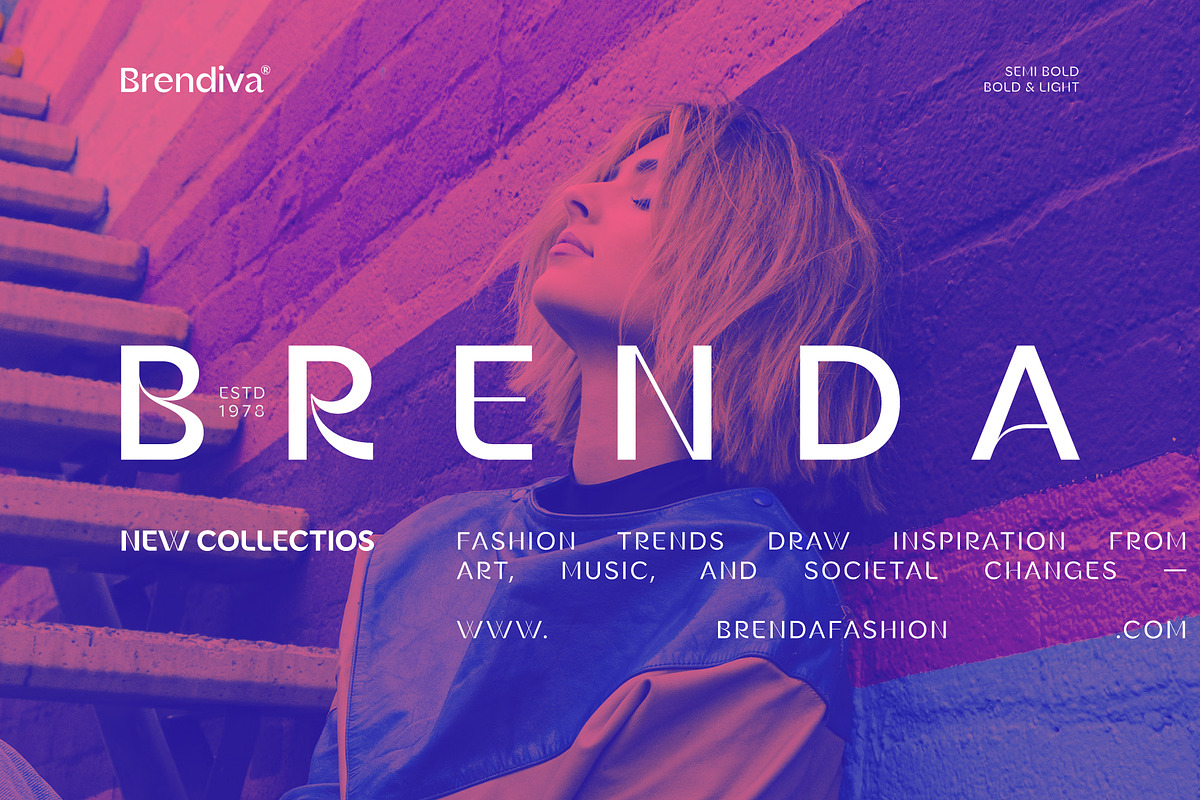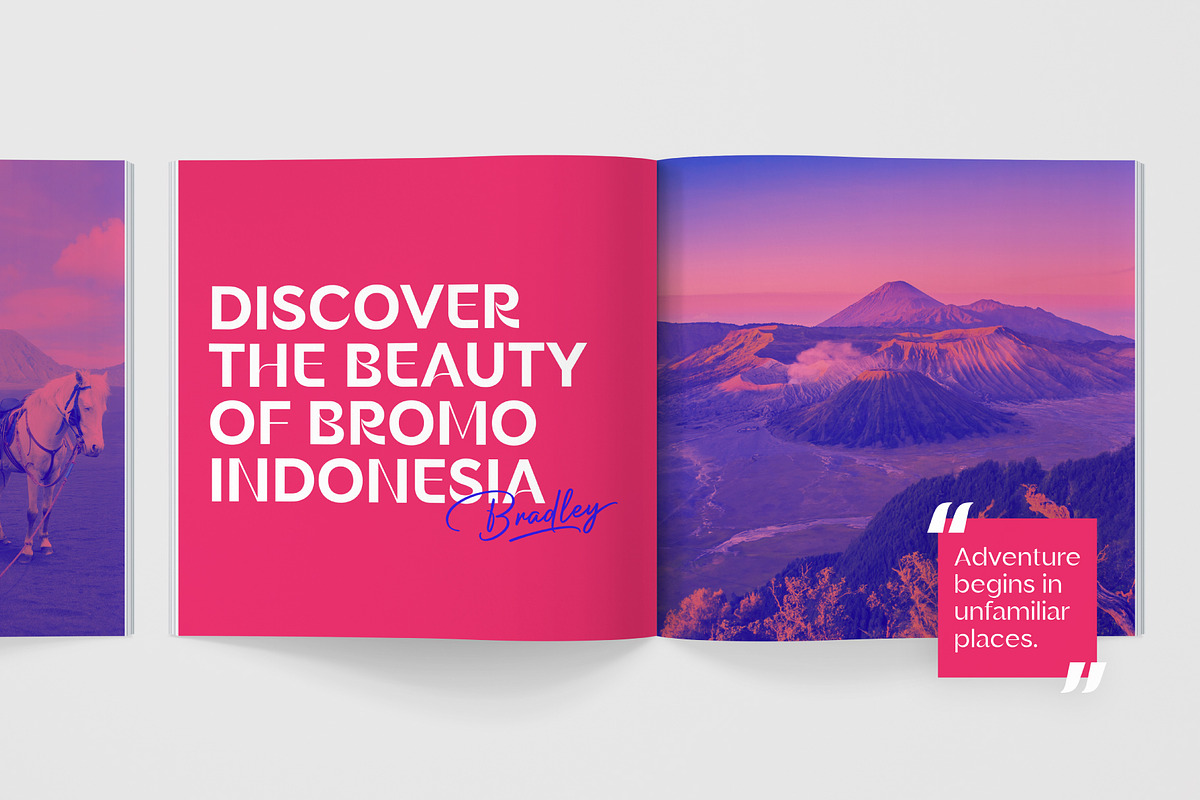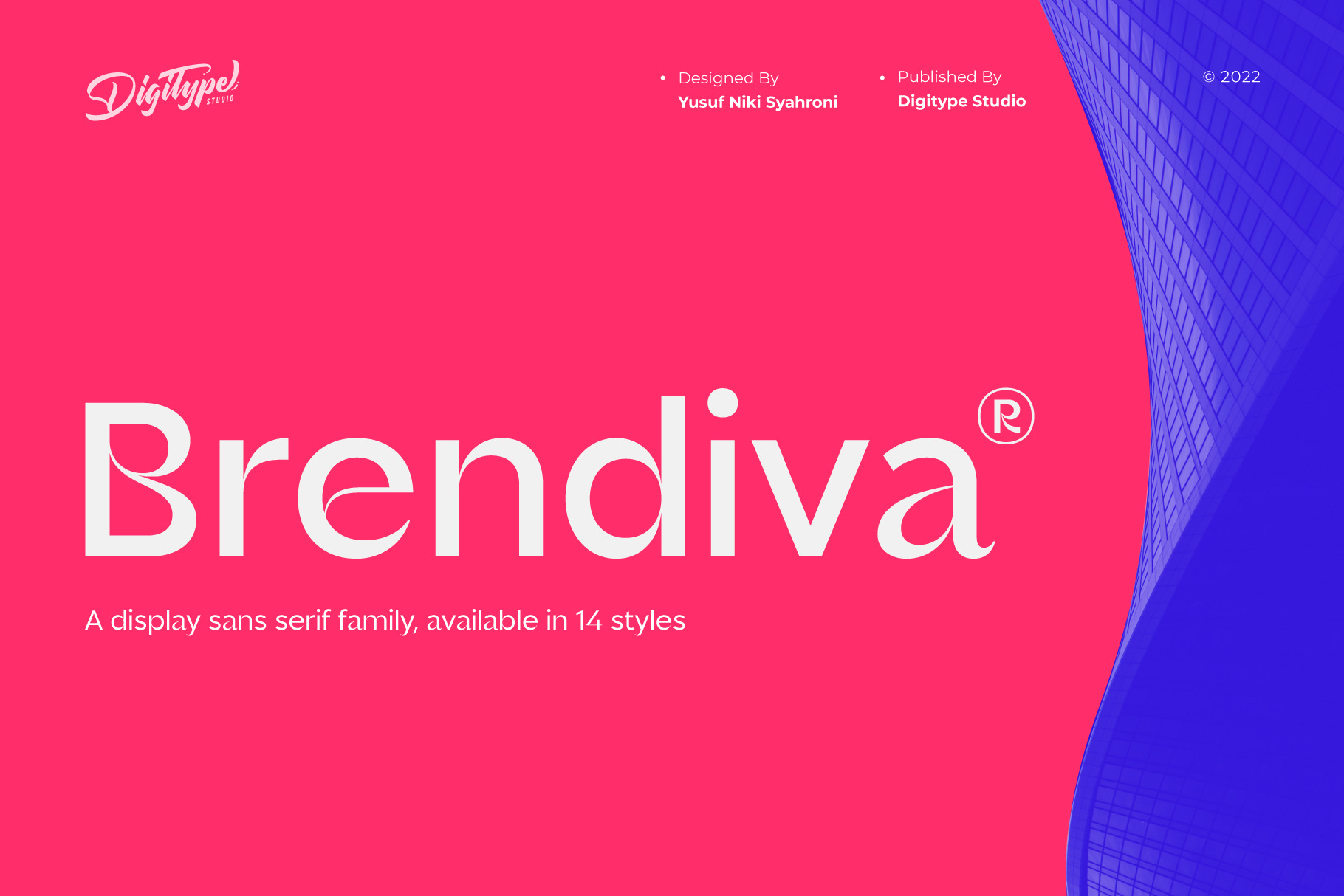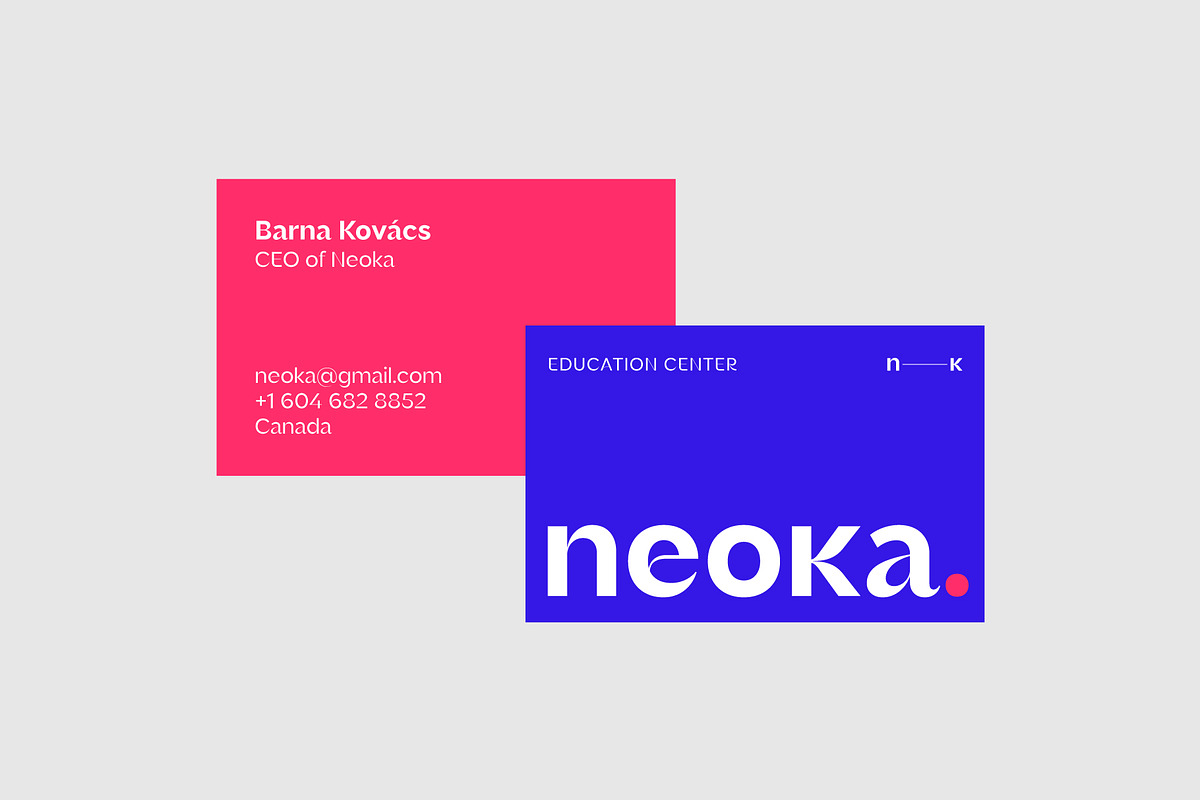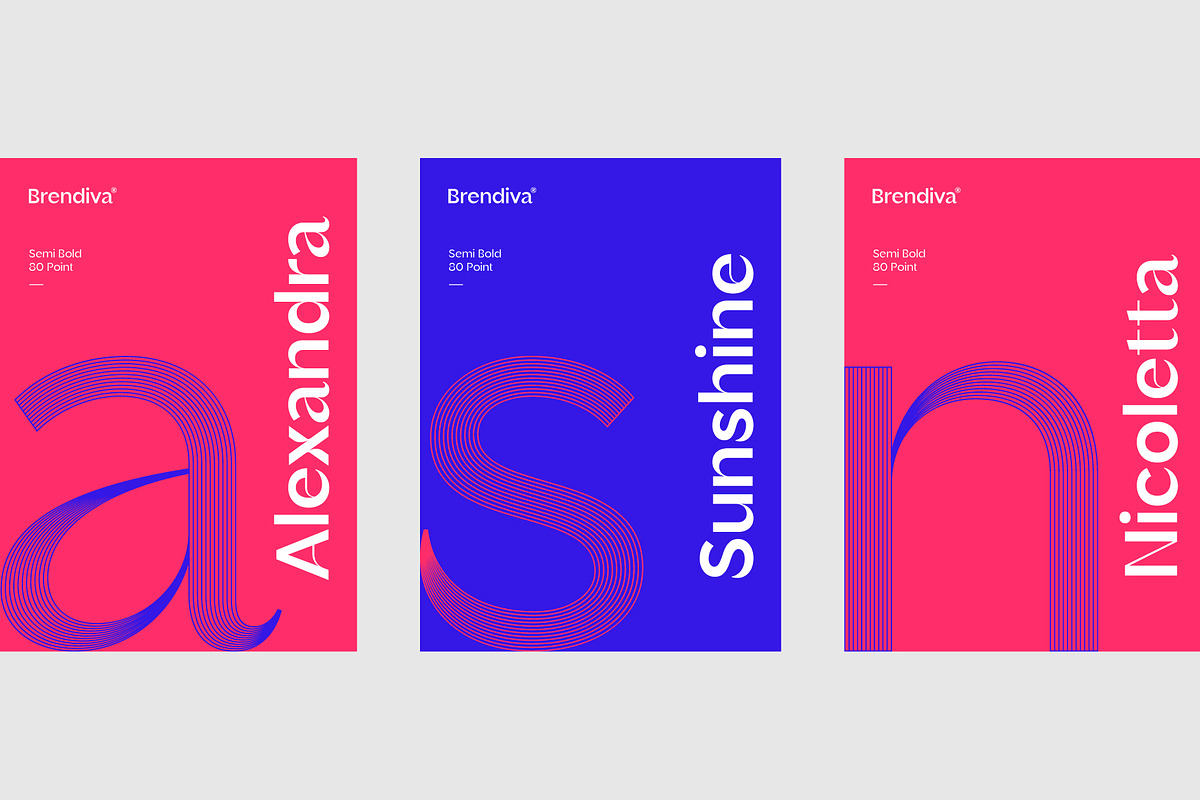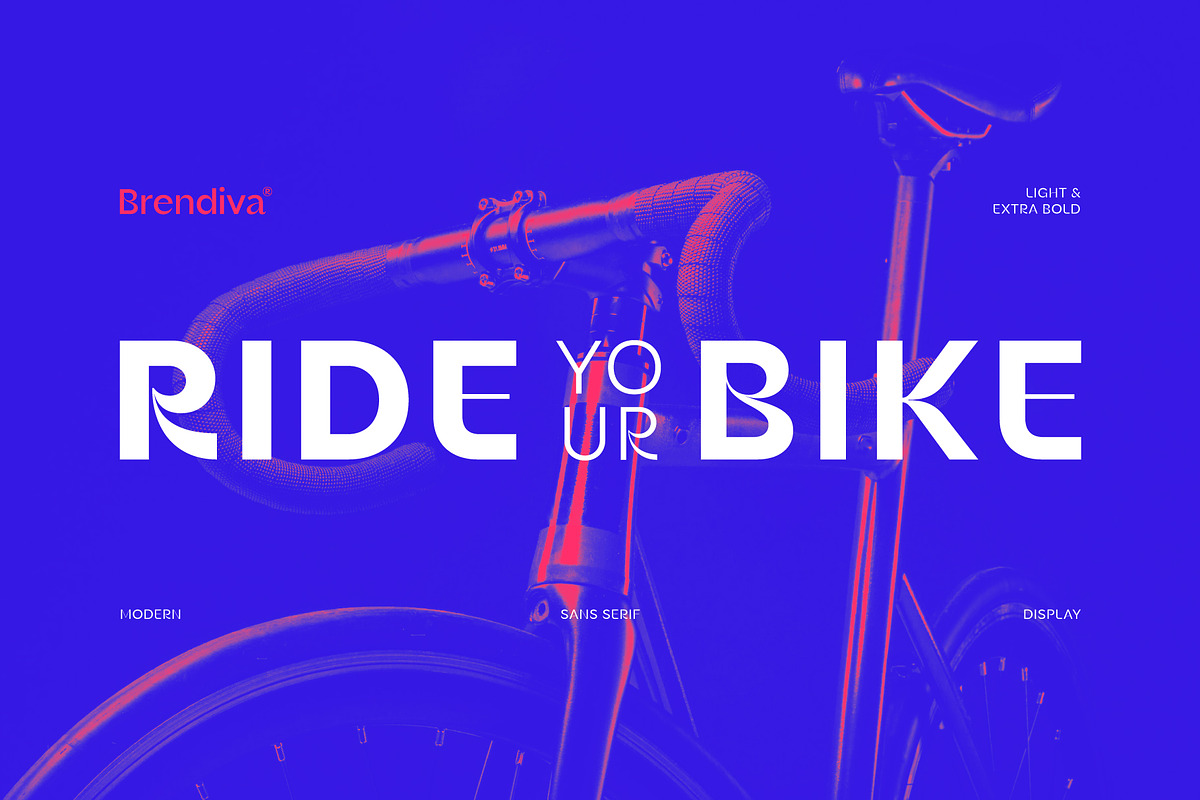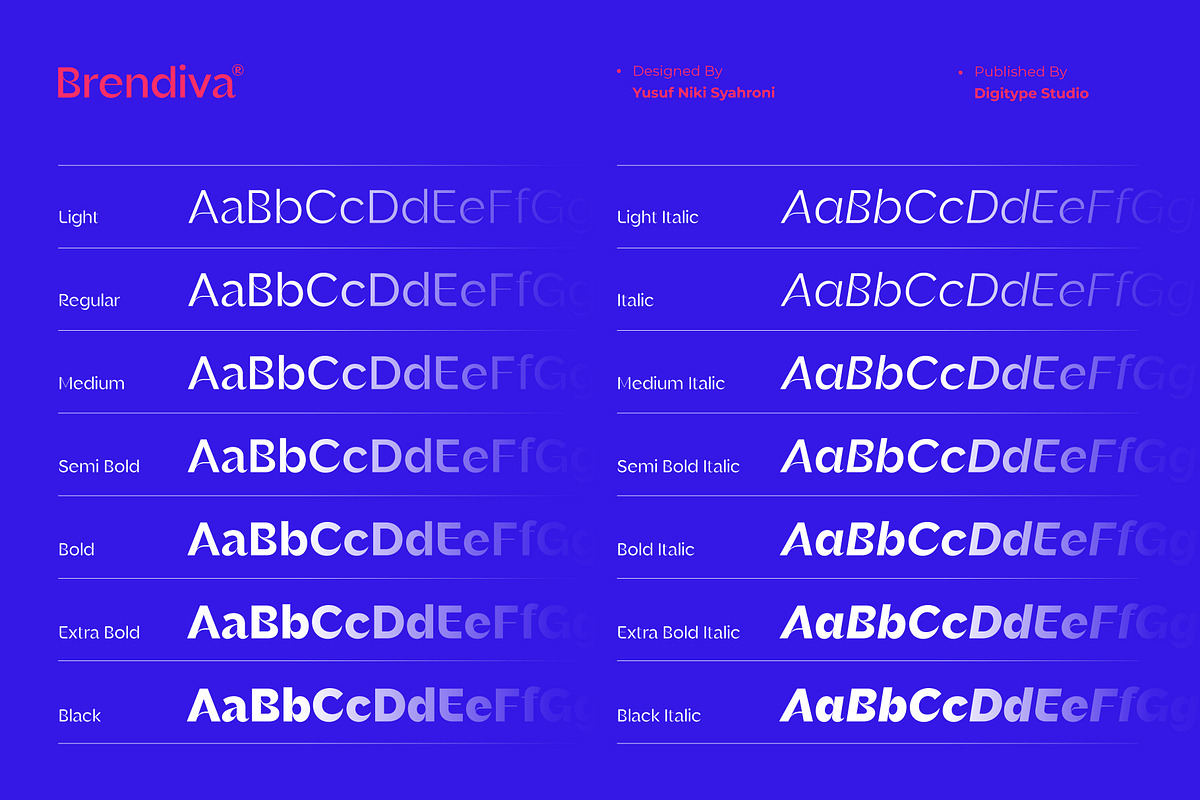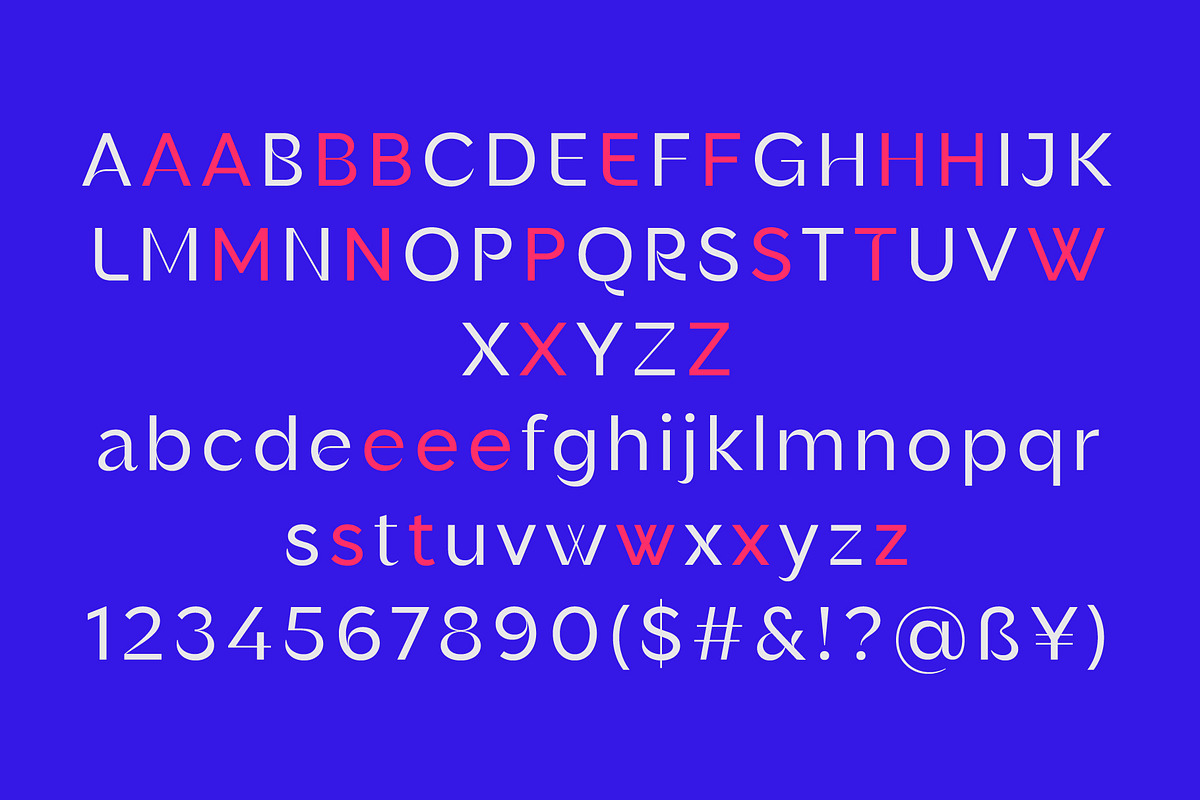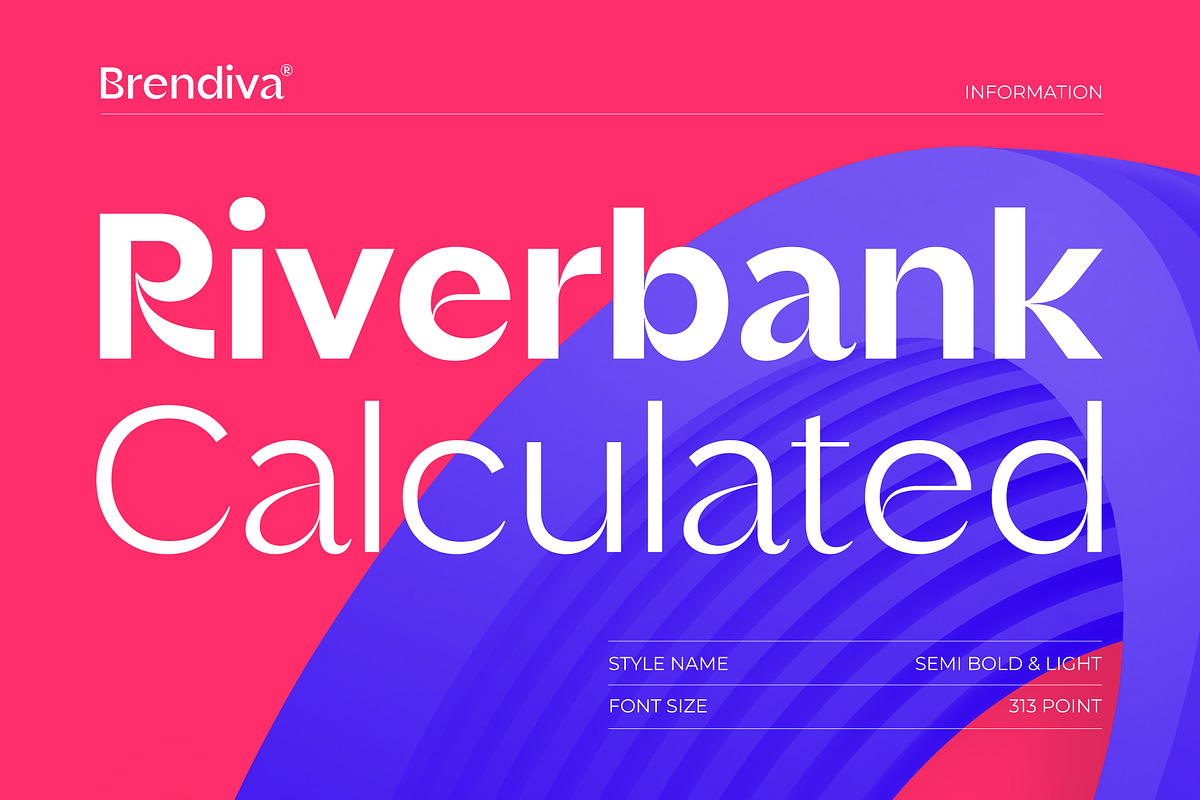
Brendiva Font Family
Introducing the Brendiva font family, a display font with 14 variants, comprising 7 upright and 7 italicized characters. Its clean and orderly design imparts a professional impression, while the high contrast in certain letters adds a unique and beautiful touch.
It is perfectly suited for diverse design projects including logos, branding, magazines, packaging, labels, books, fashion, novels, makeup, and any advertising purpose.